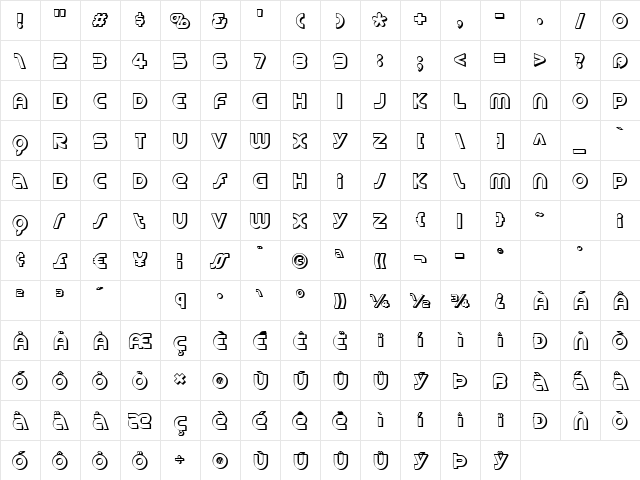
Spin Cycle 3D Regular
Spin Cycle 3D is a composed and adaptable typeface that performs quietly and consistently across a wide range of design contexts.